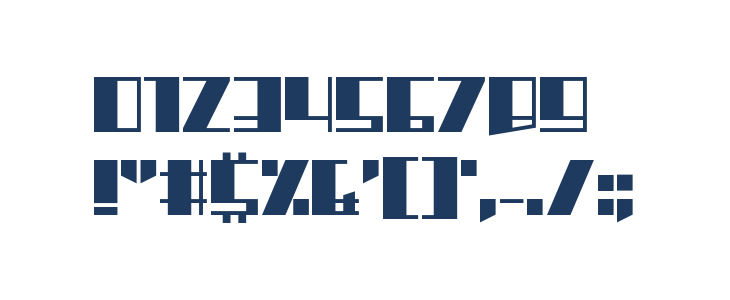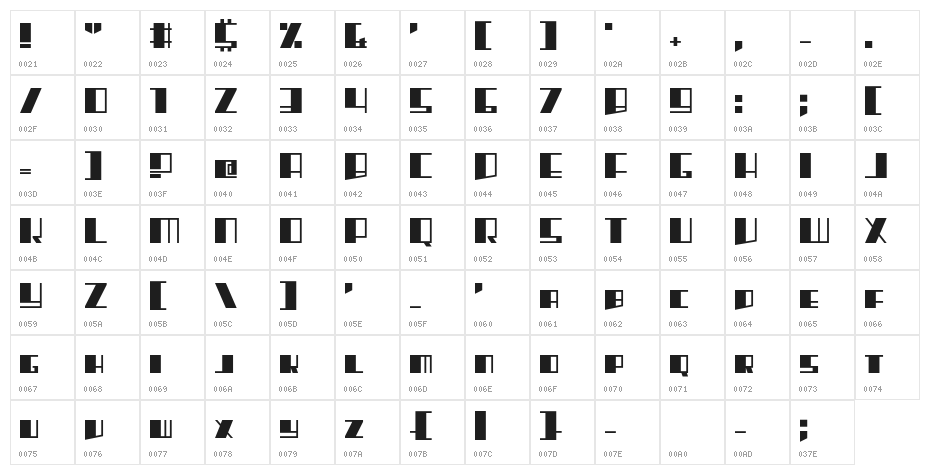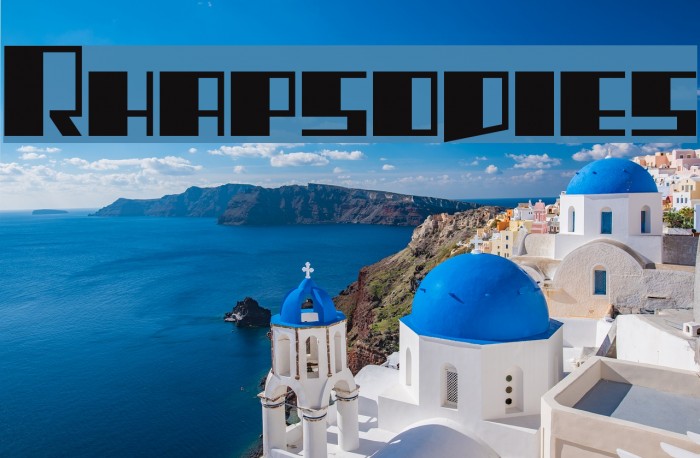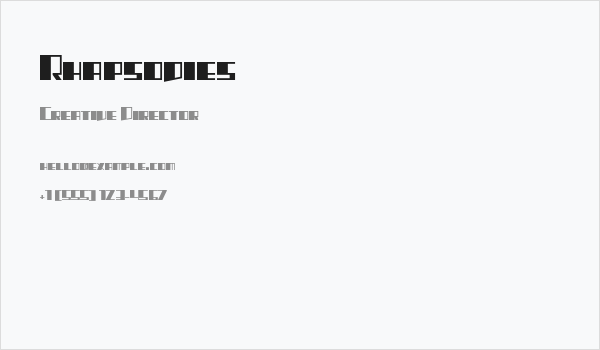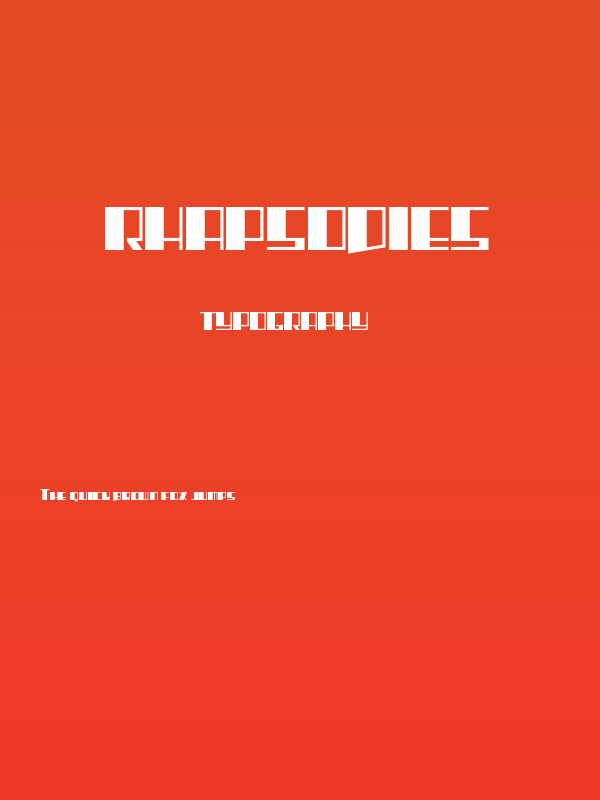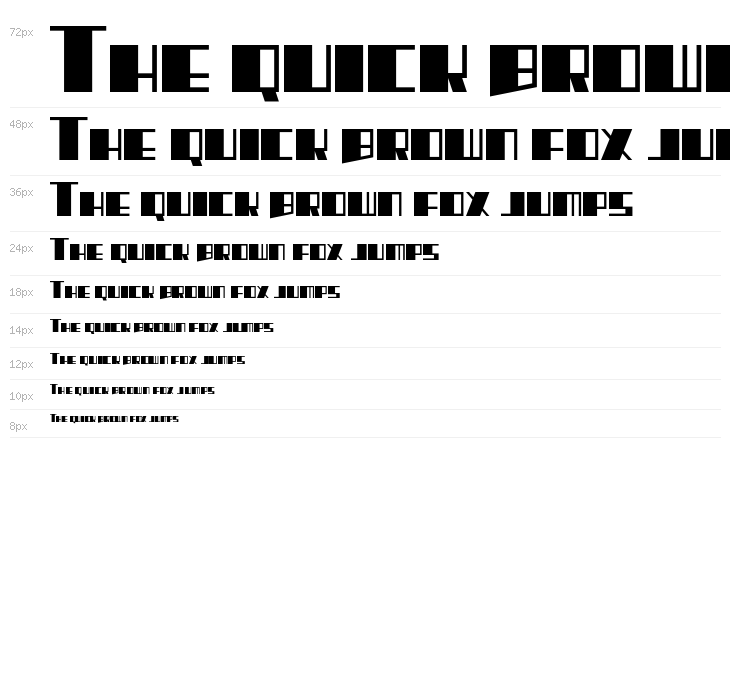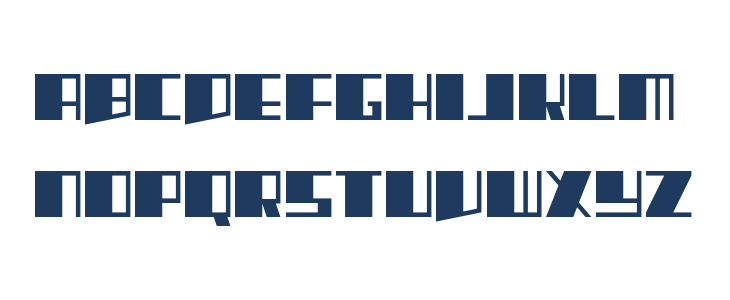
Rhapsodies Font
Rhapsodies Description
This font features a bold and geometric design with sharp angles and a futuristic aesthetic. The characters are constructed with a strong emphasis on straight lines and angular cuts, creating a sense of movement and dynamism. The uppercase and lowercase letters maintain a consistent style, with a uniform height and width that enhances readability. The numerals and special characters are designed to match the overall theme, providing a cohesive look across all elements. This font is ideal for projects that require a modern and edgy appearance, making it suitable for technology-related branding, sci-fi themes, and contemporary design projects.
| Proposed Projects | Ideal for technology branding, sci-fi themes, and modern design projects. |